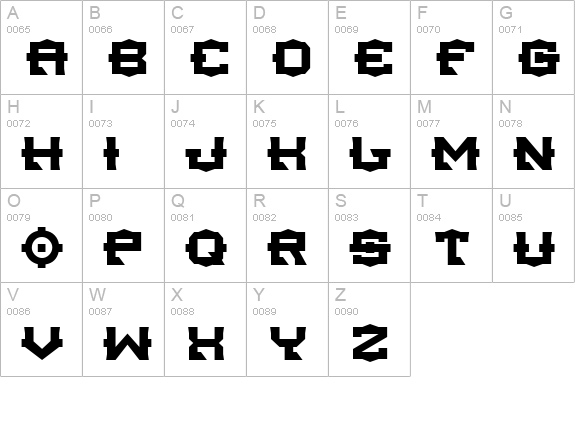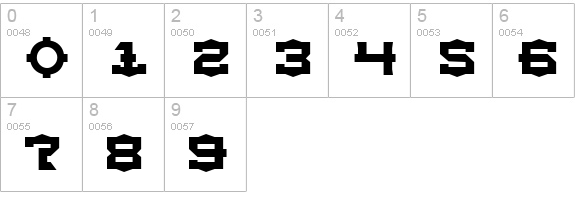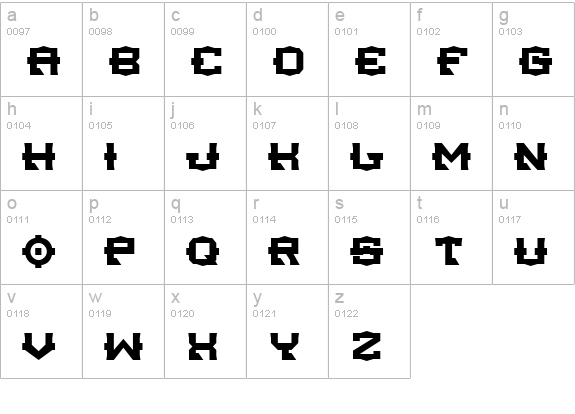
Tsa Normal is the standard, neutral variant in the Tsa typeface family \xE2\x80\x94 well suited to general body text, paragraphs, and standard typographic work.
Tsa Normal font is a beautifully crafted typeface that combines elegance with a touch of modernity. Its clean lines and balanced proportions make it versatile and suitable for various design projects. This font is perfect for creating eye-catching headlines, stylish logos, and sophisticated branding materials. Its smooth and legible characters ensure readability, making it an excellent choice for both print and digital media. What sets Tsa Normal font apart is that it is available for free download at FontsMarket.com. This means that you can easily access and utilize this stunning typeface without any cost. Whether you're a professional designer working on a client project or an amateur enthusiast looking to enhance your personal creations, Tsa Normal font offers a high-quality solution that won't break the bank. With its extensive character set, including uppercase and lowercase letters, numerals, punctuation marks, and special symbols, Tsa Normal font provides endless possibilities for your design endeavors. Its versatility allows it to seamlessly integrate into various design styles and themes. Don't miss out on the opportunity to enhance your designs with the elegance and versatility of Tsa Normal font. Download it freely at FontsMarket.com and unlock a world of creative possibilities.